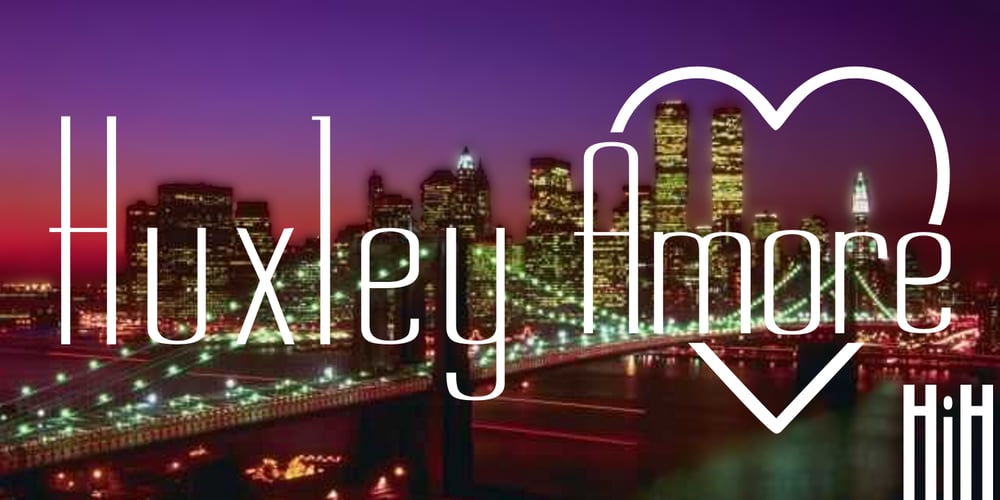
Huxley Amore Font Family was designed by Walter Huxley, Tom Wallace and published by HiH. Huxley Amore contains 5 styles and family package options. Huxley Amore is a major extension of our earlier font, Huxley Alt. Huxley Alt was was designed as an alternative to Huxley Vertical, with the addition of a lower case and with a lighter horizontal stroke than vertical. Huxley Amore is designed to do double-duty: 1. Huxley Amore is a family of five fonts, made up of Timid, Timid Inclined, Bold, Bold Inclined & Extra Bold, all with Unicode coding. There are more than 365 characters in each individual font, including all 128 accented letters that comprise the Latin Extended-A coding set. That means that languages formally covered by the WIN 1250 Central European code set are accomodated by the family, including Albanian, Czech, Croatian, Estonian, Hungarian, Latvian, Lithuanian, Polish, Romanian, Slovak and Slovenian. 2. Huxley Amore is a holiday face. Included are ten special holiday glyphs for St. Valentine’s Day, including a heart-shaped bullet, a heart-shaped Smiley Face and the ligatures LOVE and, of course, AMORE. Amore is Italian for love. French is certainly not the only “romance” language. Many years ago I met a middle-aged man at the railroad station in Venice. I was traveling with a college buddy & the man recognized us as Americans and engaged us in conversation. Turns out he had lived in Detroit for a number of years before moving back to Italy. He was a fan of Rock-n-Roll and had a big collection of 45s (this was 1965). But what I remember most is the lyrical quality with which he spoke Italian. He was slightly rotund and his words were as round as he was — they just rolled along with a spirit of joy. To me joy is romantic and wants to be shared. It is not manufactured and it is not over-done. It is just simple and direct and infectious. That is why I think Huxley Amore is a great choice for expressing romantic thoughts. Huxley Amore is visually simple and direct and yet sophisticated and unexpected. Those are the qualities that give it such freshness in this context. Highly condensed. Set it large or lose it. See the gallery image for examples of how to say, “I love you” in various European languages. See if you can find yours.